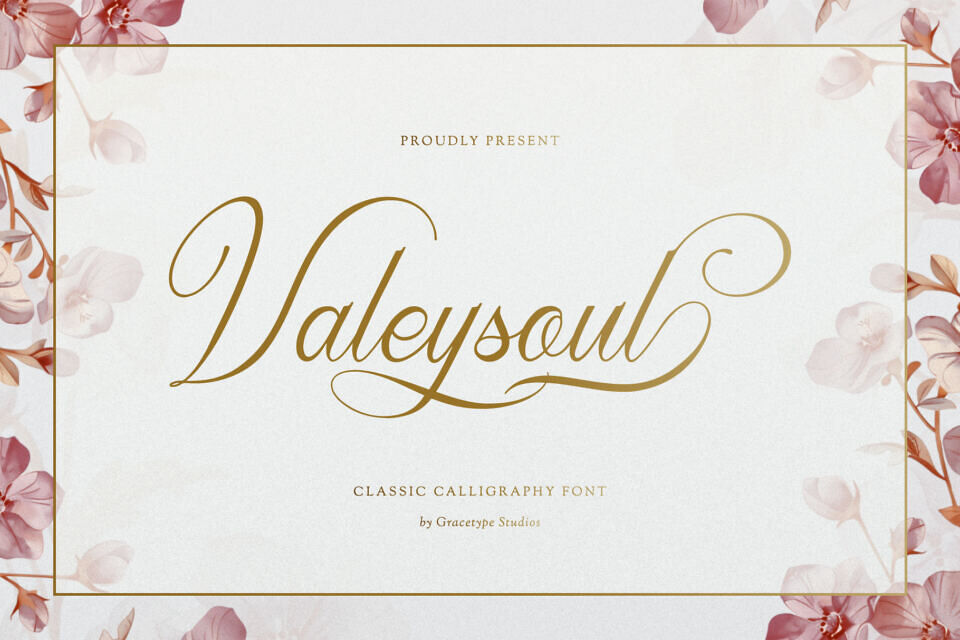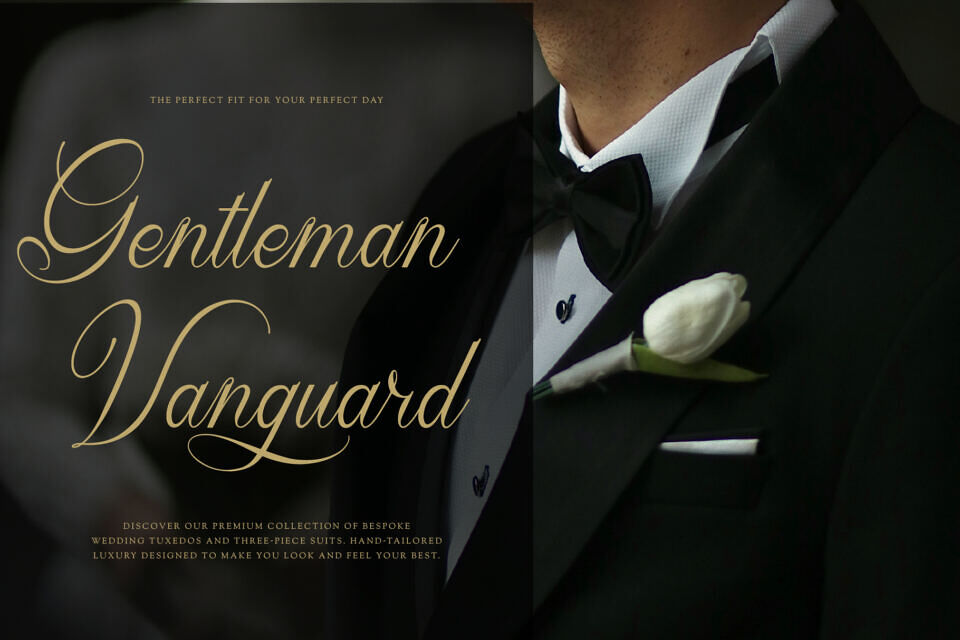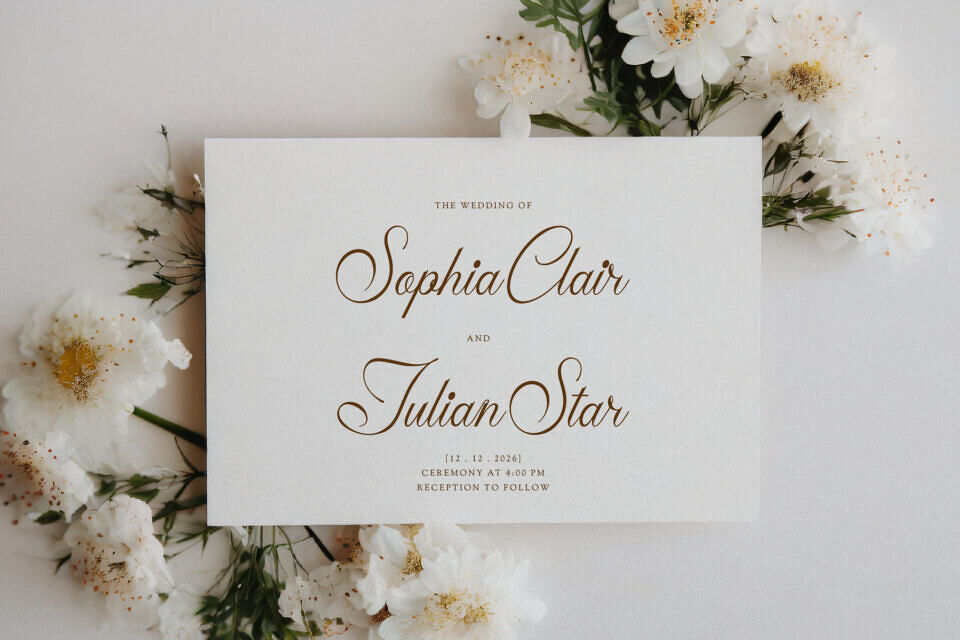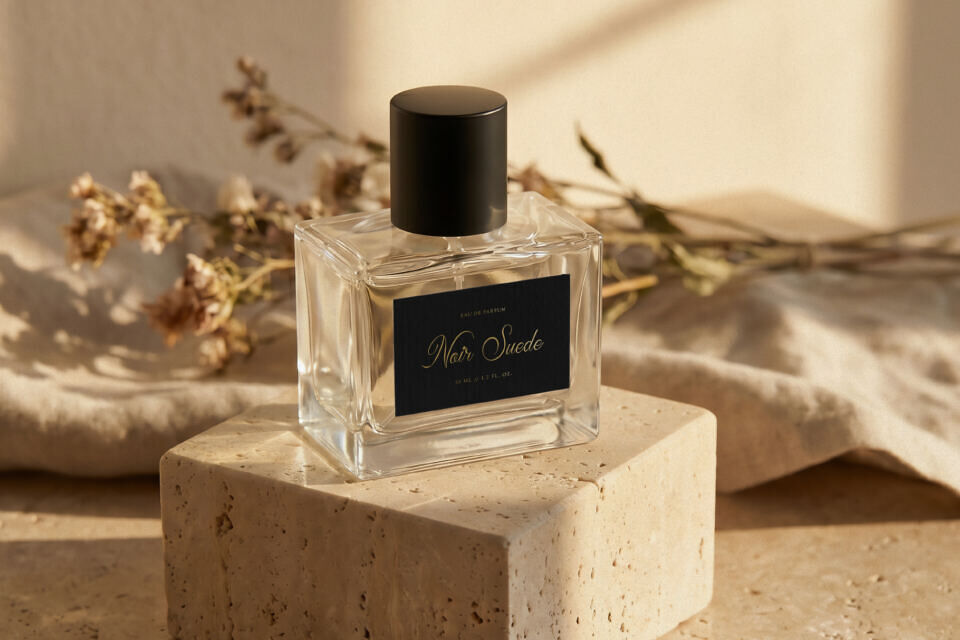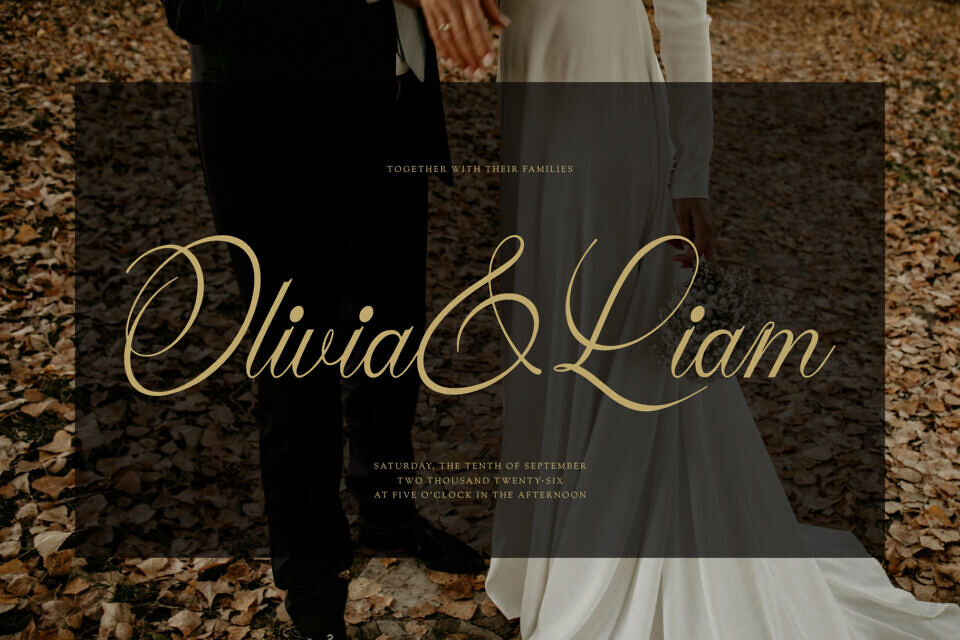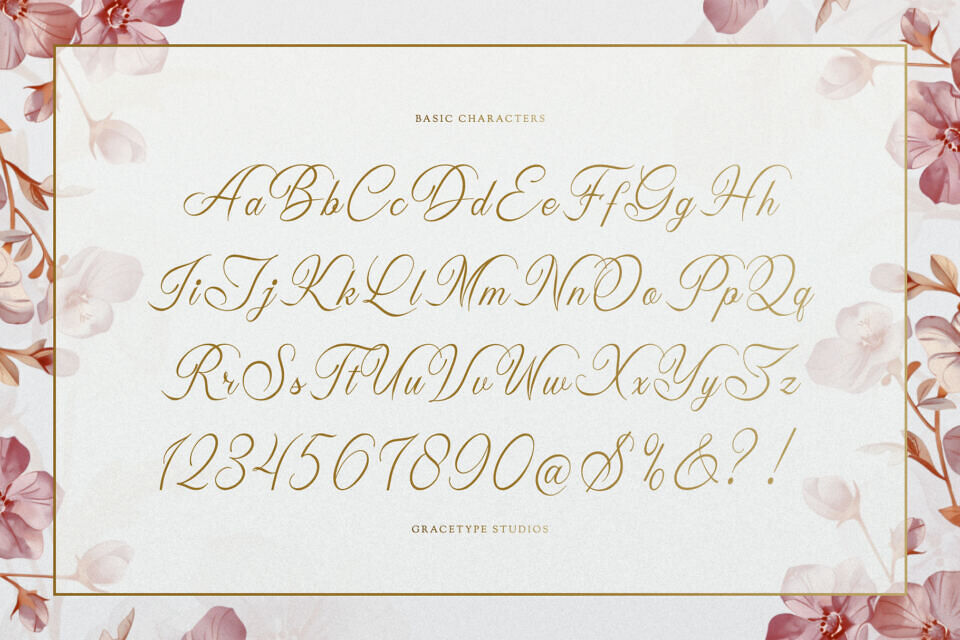
Add a touch of elegance to your designs with Valeysoul, a sophisticated display font. Its unique style features flowing lowercase letters, dramatic ascenders, and a dynamic italic slant.
The contrast between thick and thin strokes creates a beautiful, rhythmic flow. Ideal for luxury applications, Valeysoul is perfect for high-end wedding invitations, fashion branding, and premium product packaging, evoking a sense of artisanal craftsmanship.